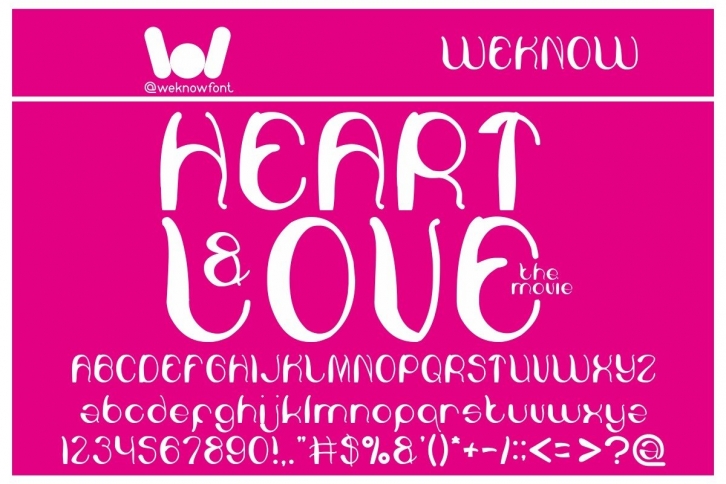
Heart and Love is a chic and whimsical display font. Add it to each of your party invitation, gathering or pretty much any design that requires a touch of youth and joy.Â